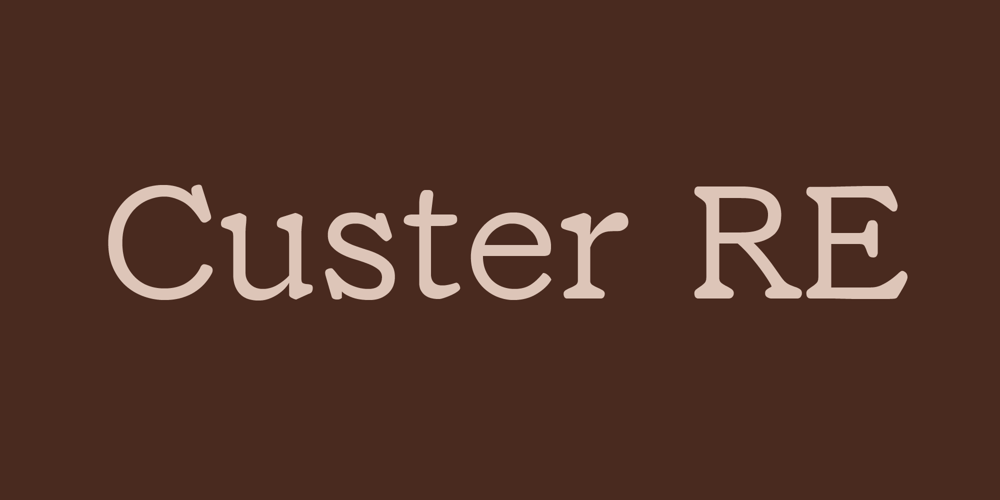
Custer RE
Custer RE font
Custer RE Font Family was designed by David Berlow and published by Font Bureau. Custer RE contains 4 styles and family package options. A book in the library of University of Wisconsin caught David Berlow’s attention. It was set in a clear text face – a predecessor of Bookman, cast by the Western Type Foundry who called it Custer. Upon noting how well the typeface worked in 6 and 7 points, he developed it into a member of the Reading Edge series specifically designed for small text on screen. Custer RE was a broad and approachable typeface drawn large on the body with a tall x-height to maximize its size when set very small.